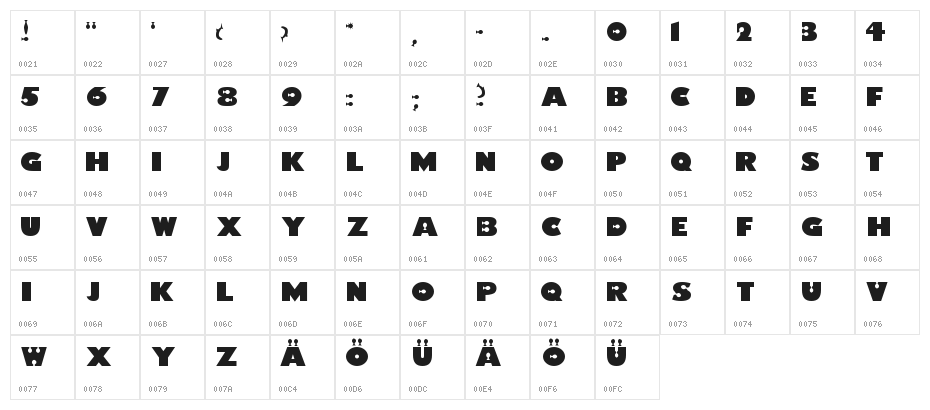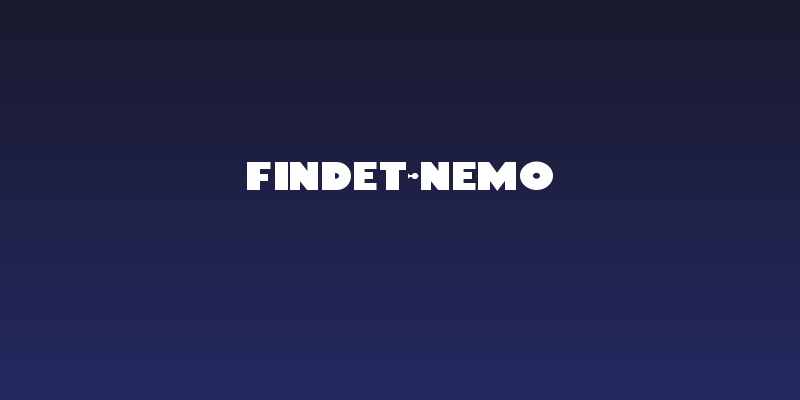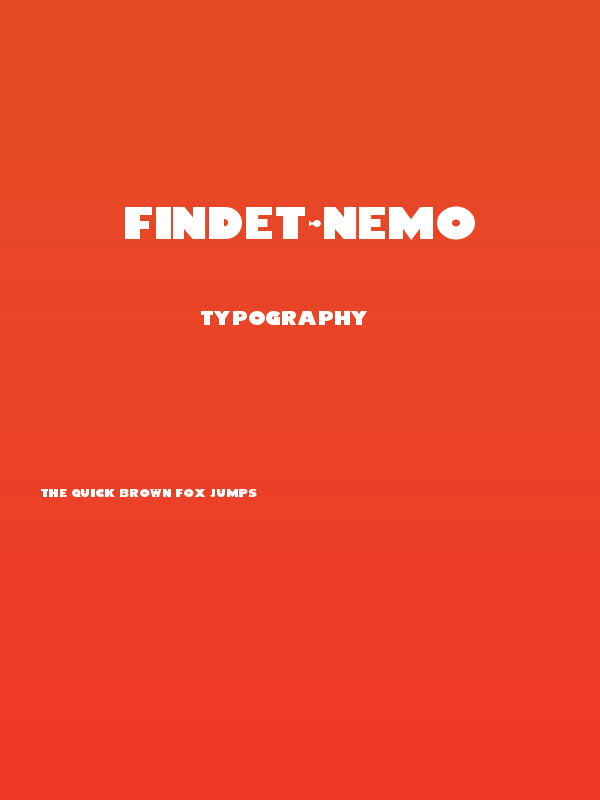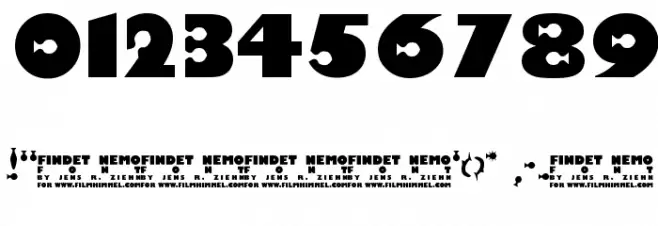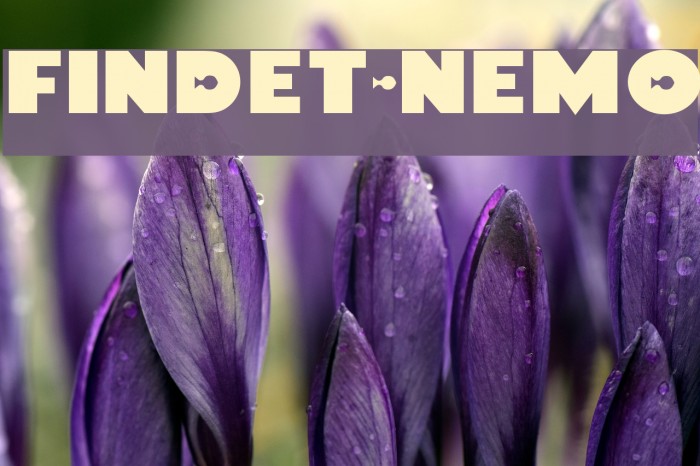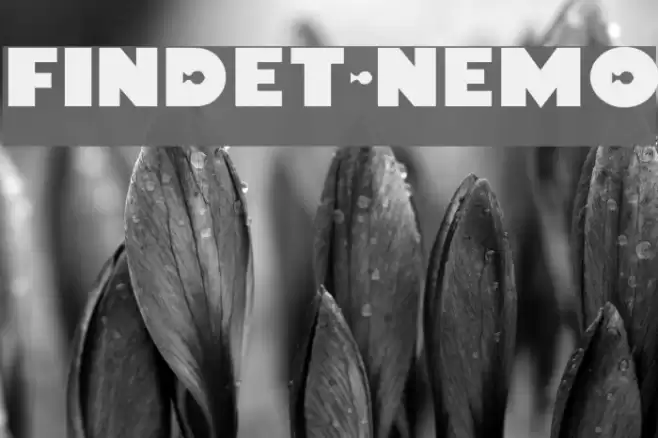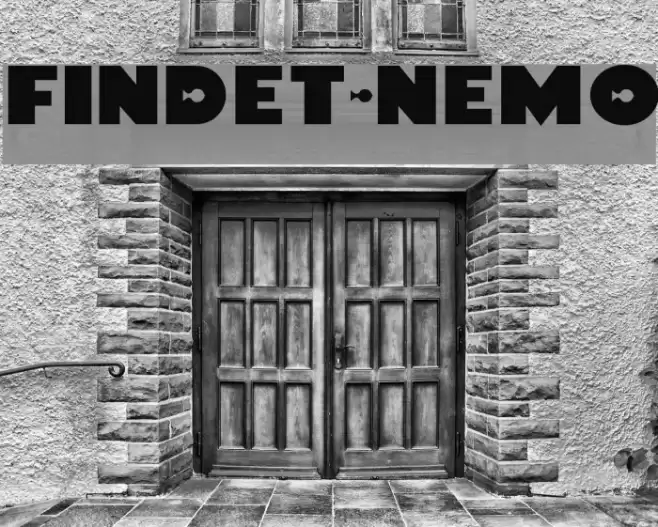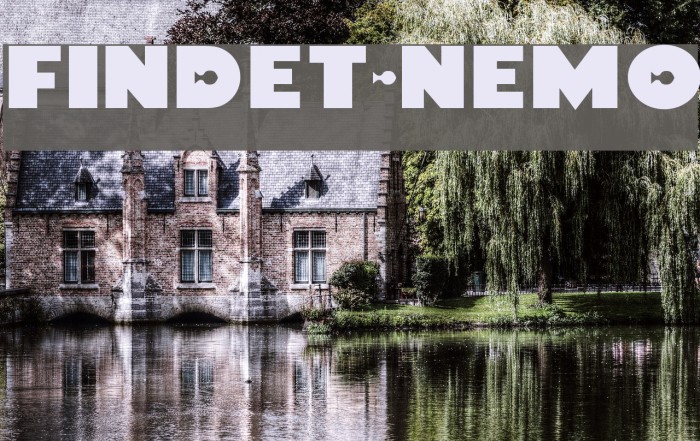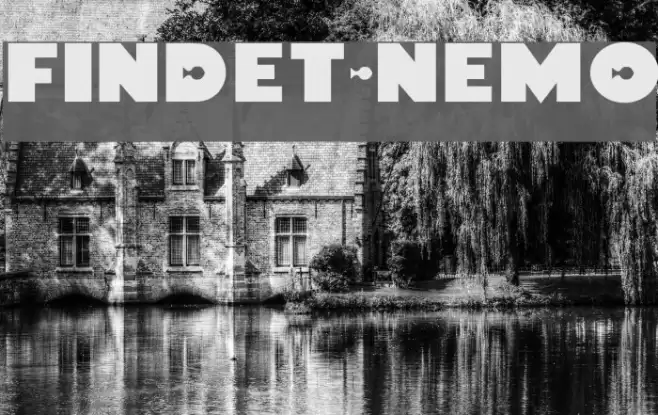
Findet-Nemo Font
Findet-Nemo Description
This font features bold, playful characters with a distinctively rounded and chunky appearance. The letters are designed with a strong emphasis on geometric shapes, giving them a modern and whimsical feel. The uppercase and lowercase letters maintain a consistent style, with some characters incorporating unique cut-out details that add to the font's playful nature. The numbers follow the same bold and rounded design, ensuring uniformity across all characters. Special characters are also included, matching the overall aesthetic. This font is ideal for projects that require a fun and engaging visual impact.
| Overall Style | Playful, Modern |
| Proposed Projects | Ideal for children's book covers, playful branding, animated movie titles, and any project requiring a fun, engaging typeface. |